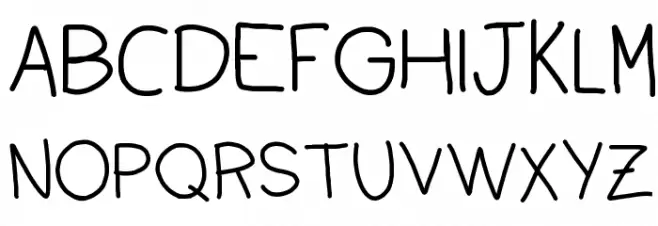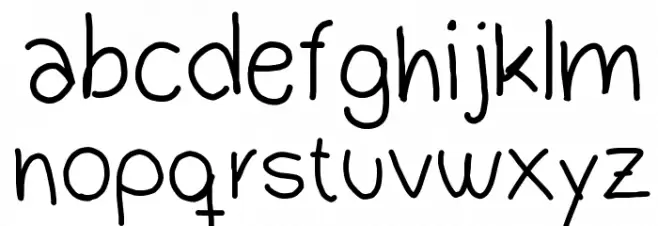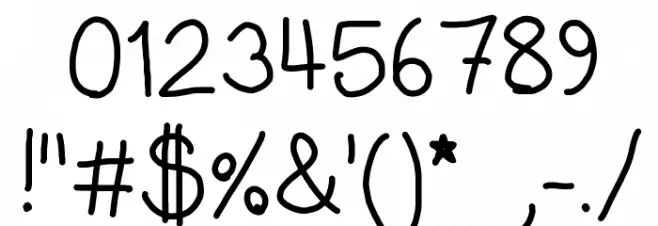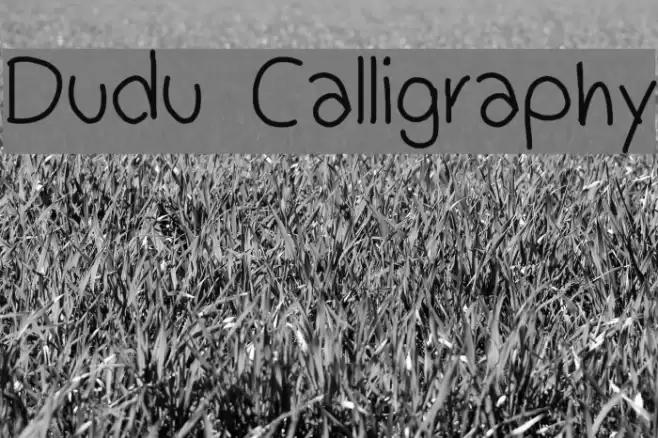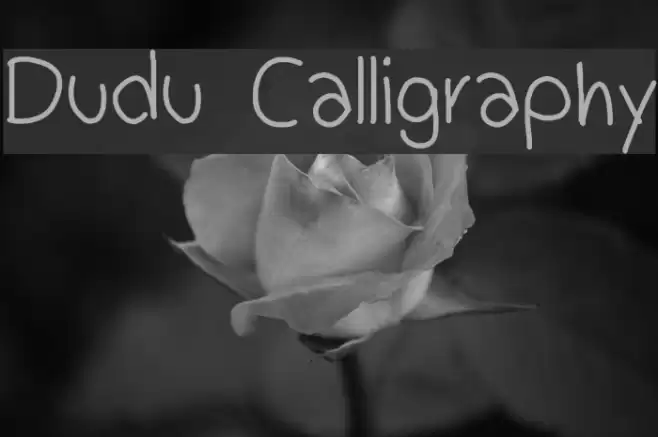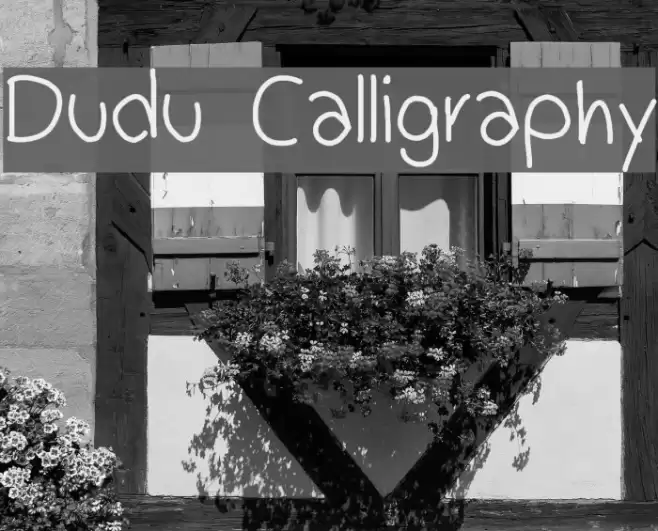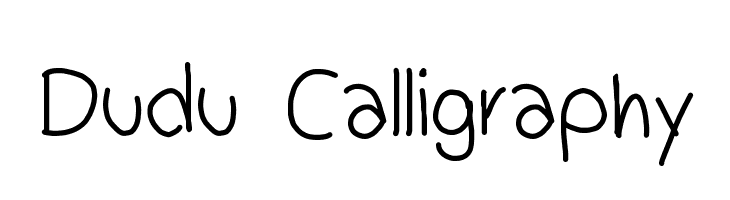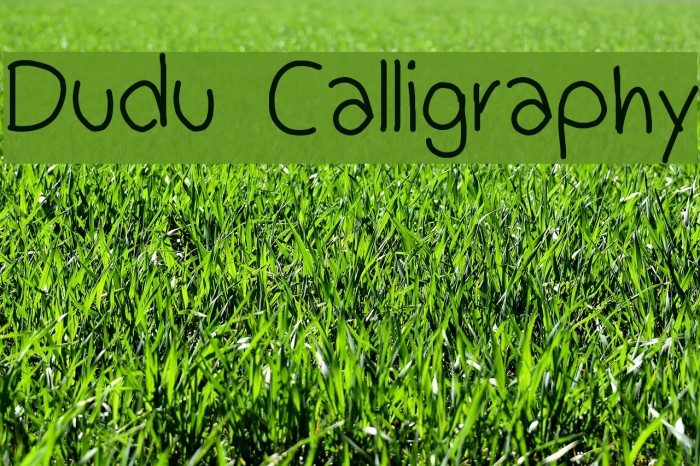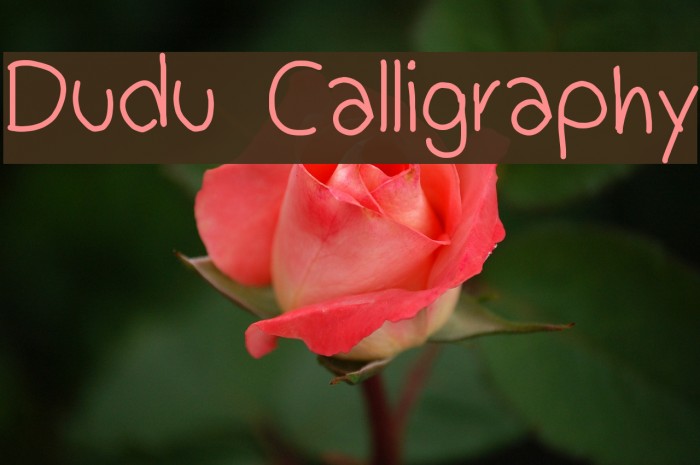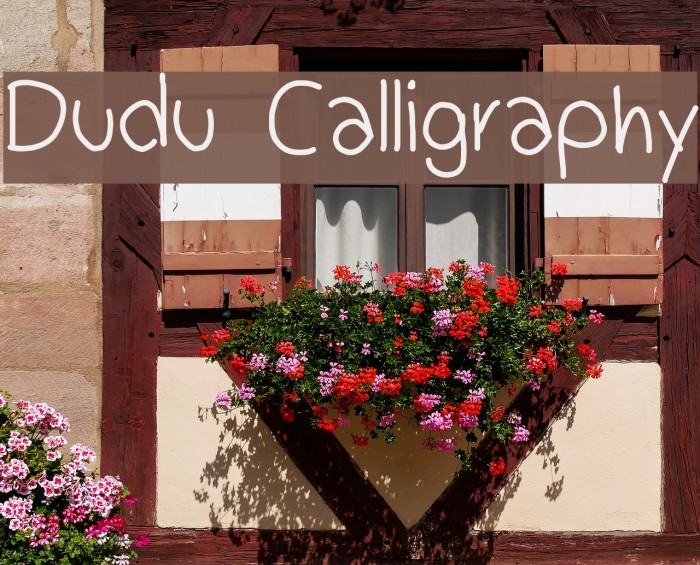
Dudu Calligraphy
This font features a playful and casual handwritten style, characterized by its smooth, rounded edges and slightly irregular letterforms. The uppercase letters are tall and narrow, while the lowercase letters maintain a consistent height, creating a harmonious balance. The numerals are clear and legible, matching the overall aesthetic of the alphabet. Special characters are included, maintaining the same whimsical style. The font's informal and friendly appearance makes it ideal for projects that require a personal touch.
A playful, casual handwritten font with smooth, rounded edges and irregular letterforms.
- Proposed Projects: Ideal for greeting cards, children's books, personal blogs, and informal branding projects.
- Overall Style: Casual
- Use Case: Logos, Headlines, Informal Text